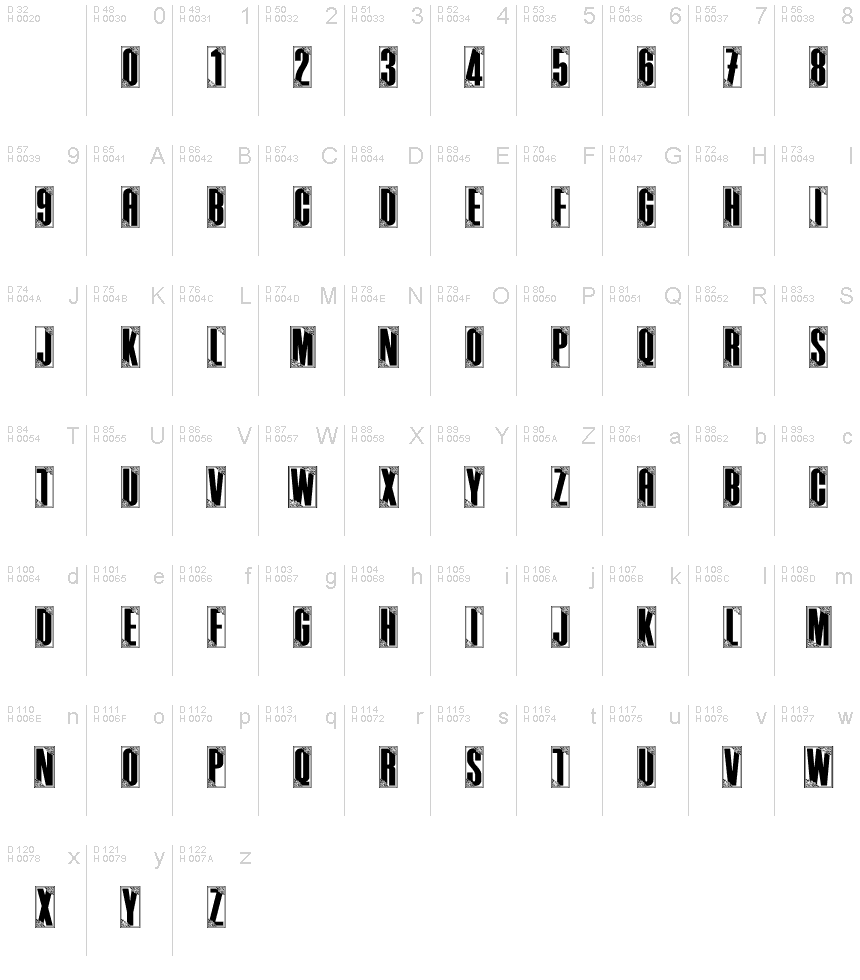
Envelope
The Envelope font, crafted by Scratchones, combines a striking decorative style with an extra-condensed width. Its unique design makes it perfect for eye-catching headlines, poster designs, and logo creations that demand attention. Whether you're working on a modern fashion campaign or a retro-inspired event invitation, Envelope's display typeface will add an artistic flair to any project. With its condensed width, this font ensures maximum impact even in limited space. Let your creativity soar as you explore the endless possibilities offered by Envelope's distinct and memorable letterforms.